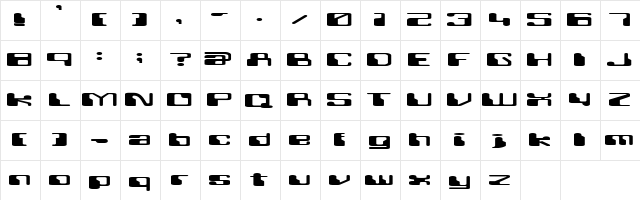
Retroheavyfuture Regular Free Font
Retroheavyfuture Regular
Design Context for Retroheavyfuture
Retroheavyfuture has a distinctly futuristic character, with geometric precision and clean angles that feel at home in technology, gaming, and sci-fi contexts.
Pro Tip: Try Retroheavyfuture with generous letter-spacing in UI labels and navigation - the geometric forms benefit from room to breathe.